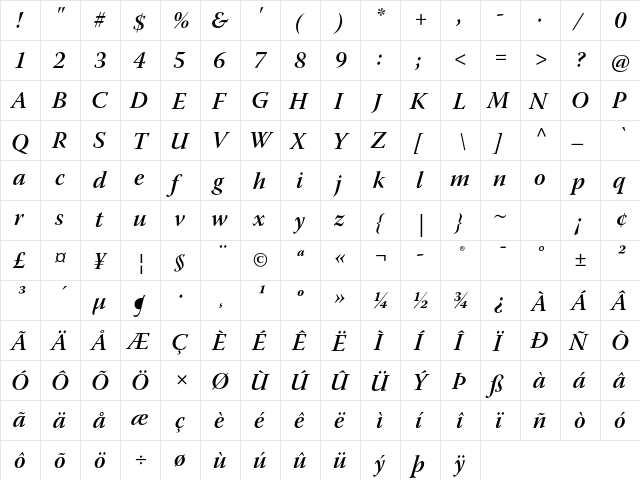
Warnock Pro Semibold Italic Subhead
| Designer | Robert Slimbach |
Design Context for Warnock Pro Typeface
Warnock Pro offers clean, dependable letterforms without strong stylistic allegiance, making it a practical choice for designers who need flexibility. Its italic angle brings a sense of urgency and motion to the letterforms. Its bold stroke weight gives it real presence on the page.